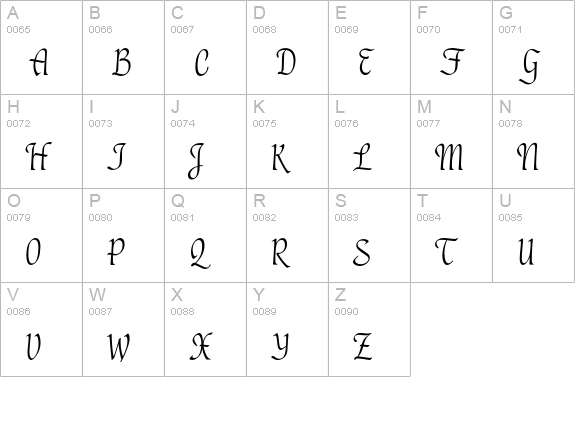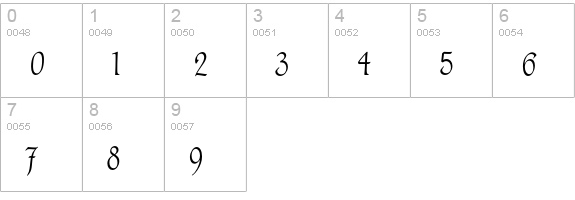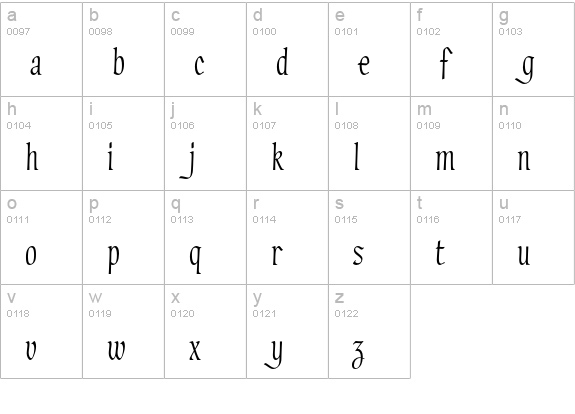
Hadfield Std is a visually stunning font that exudes elegance and sophistication. With its clean lines and balanced letterforms, this typeface is perfect for a wide range of design projects. Whether you're working on a logo, branding materials, or a website, Hadfield Std will add a touch of class and professionalism. One of the best things about Hadfield Std is that it is absolutely free. Yes, you read that right - this exceptional font can be downloaded at no cost! Thanks to FontsMarket.com, you can easily access and enjoy this font without any limitations. With Hadfield Std, your designs will truly stand out from the crowd. Its timeless beauty and versatility make it a must-have for any designer or typographer. So why wait? Head over to FontsMarket.com and download Hadfield Std today, and start creating stunning designs that will leave a lasting impression.